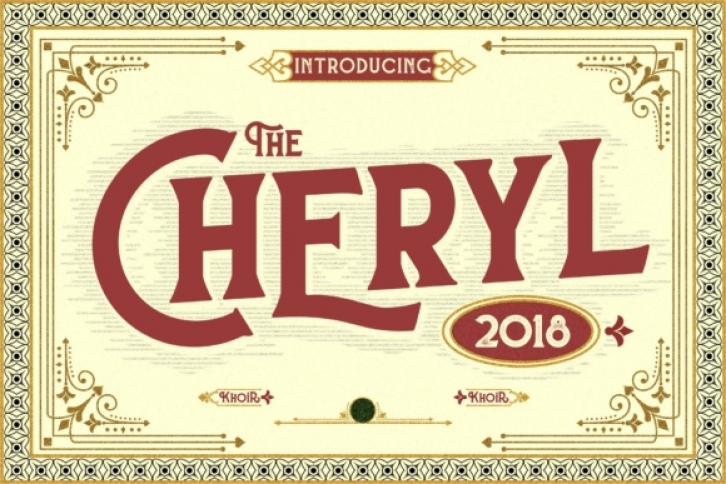
The Cheryl has an artistic style, is elegant, and has classic nuances and unique styles to be combined with each other. Cheryl comes with two font variations, regular and rough.